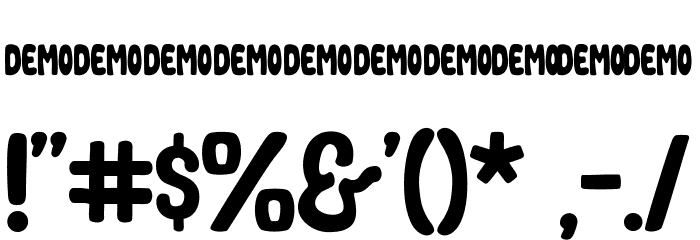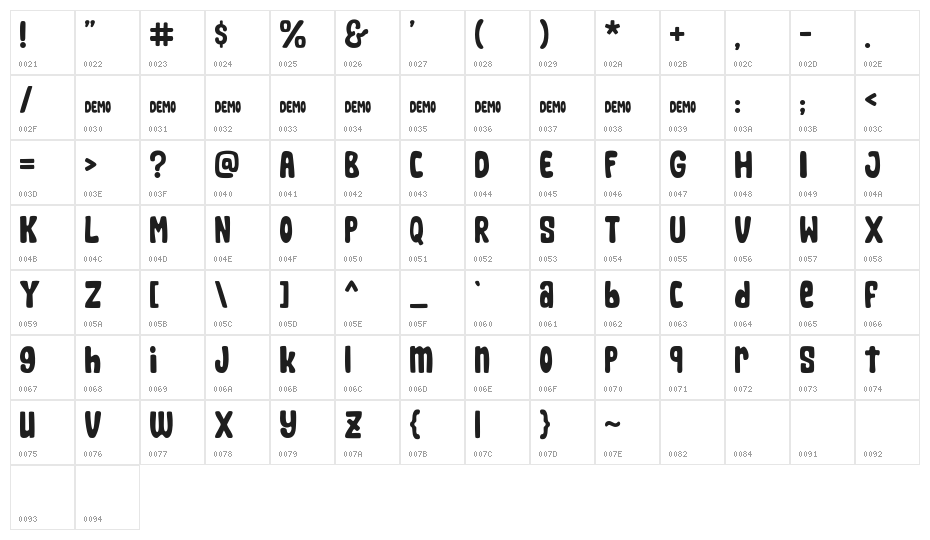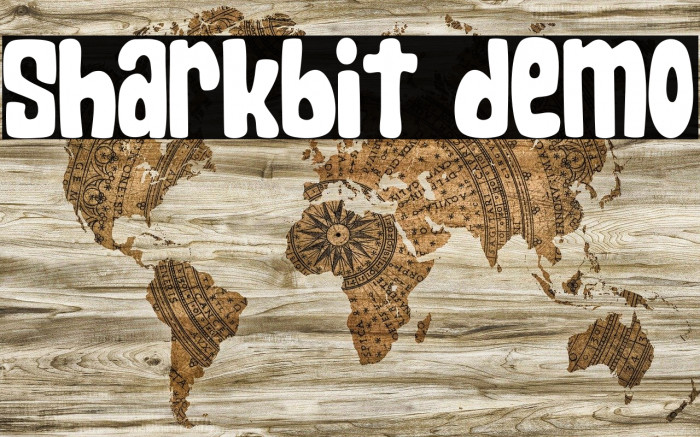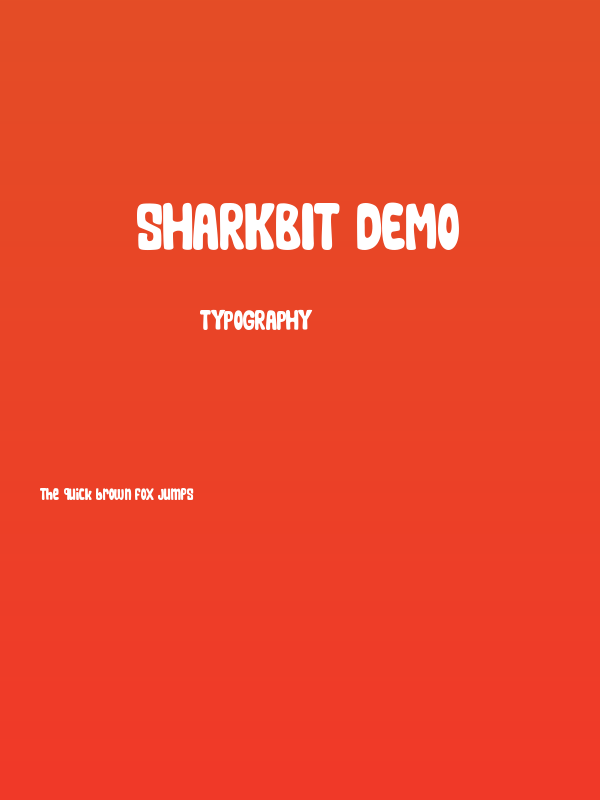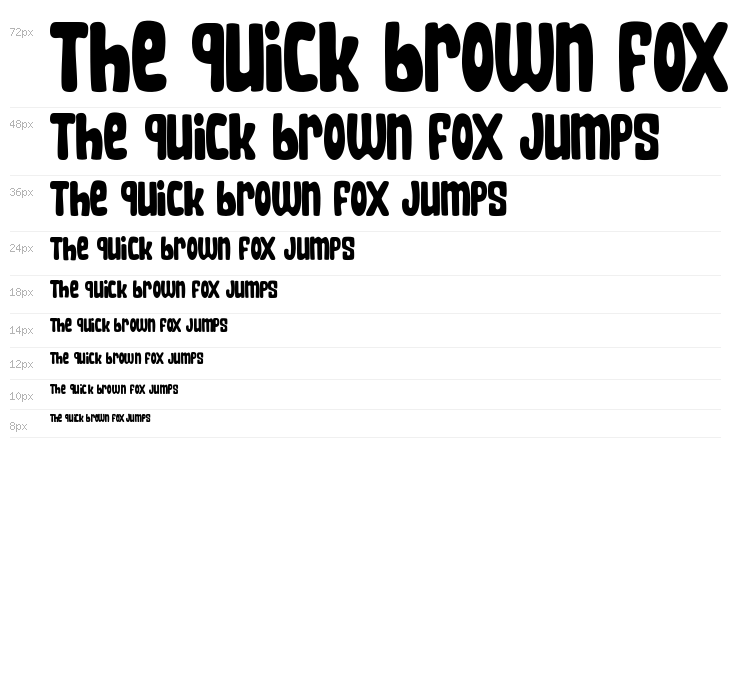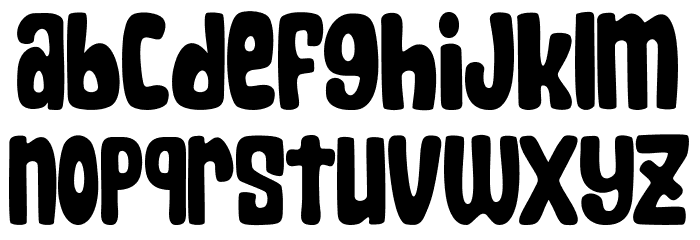
Sharkbit demo Font
Sharkbit demo Description
This playful and bold font features thick, rounded characters that exude a sense of fun and creativity. The letters are uniformly bold with a slightly irregular shape, giving them a hand-drawn appearance. The uppercase and lowercase characters maintain a consistent style, with the lowercase letters mirroring the playful curves of the uppercase. The numbers and special characters follow the same design ethos, ensuring a cohesive look across all text. This font's unique style makes it stand out, perfect for projects that require a touch of whimsy and boldness.
| Overall Style | Playful, Creative |
| Proposed Projects | Ideal for children's books, playful branding, posters, and creative social media graphics. |